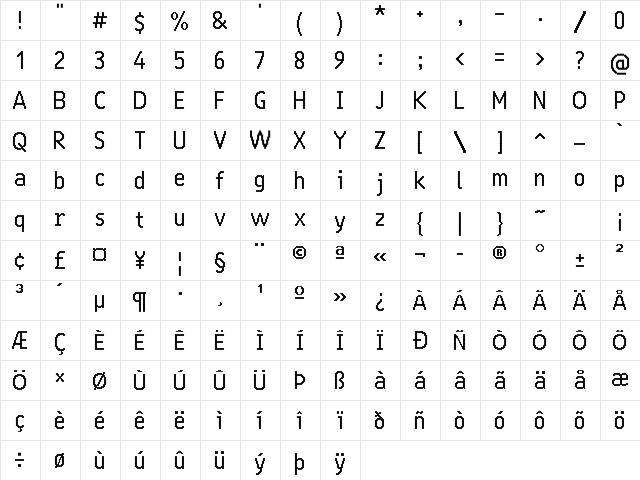
24 LED Bright Regular
| Foundry | Peter Wiegel |
| Designer | Peter Wiegel |
Design Context for 24 LED Bright Typeface
24 LED Bright takes a measured approach to typography — its balanced proportions and neutral character make it a reliable workhorse for both digital and print work.